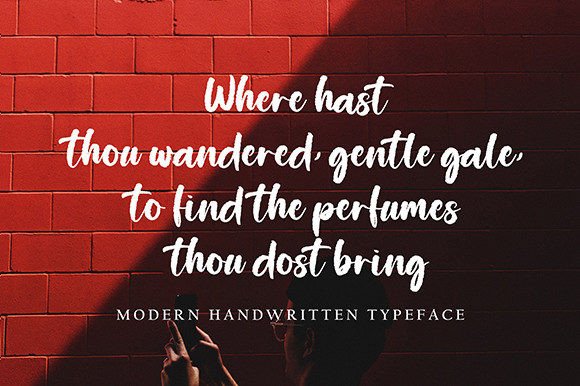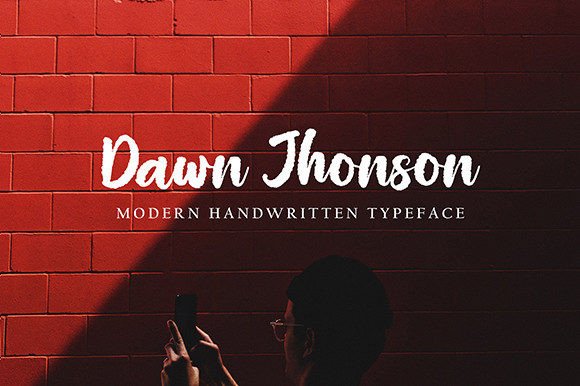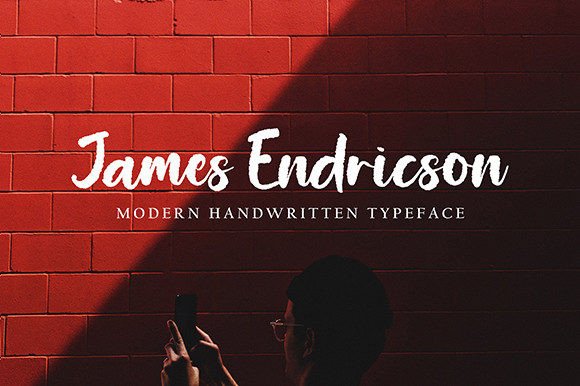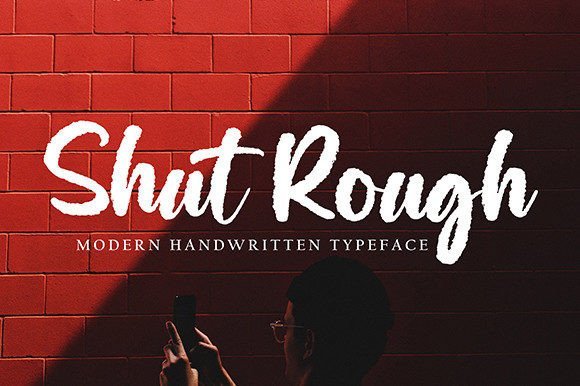
Introduction to Shut Rough Font
Shut Rough is a rough script font with a new style.
It is perfect for many different projects such as quotes, logos, blog headers, posters, banding, letters, invitations, stationery, etc .
Shut Rough Font offers exceptional quality and versatility, making it a valuable addition to your design toolkit. Whether you’re creating for personal projects or commercial use, Shut Rough Font delivers professional results.